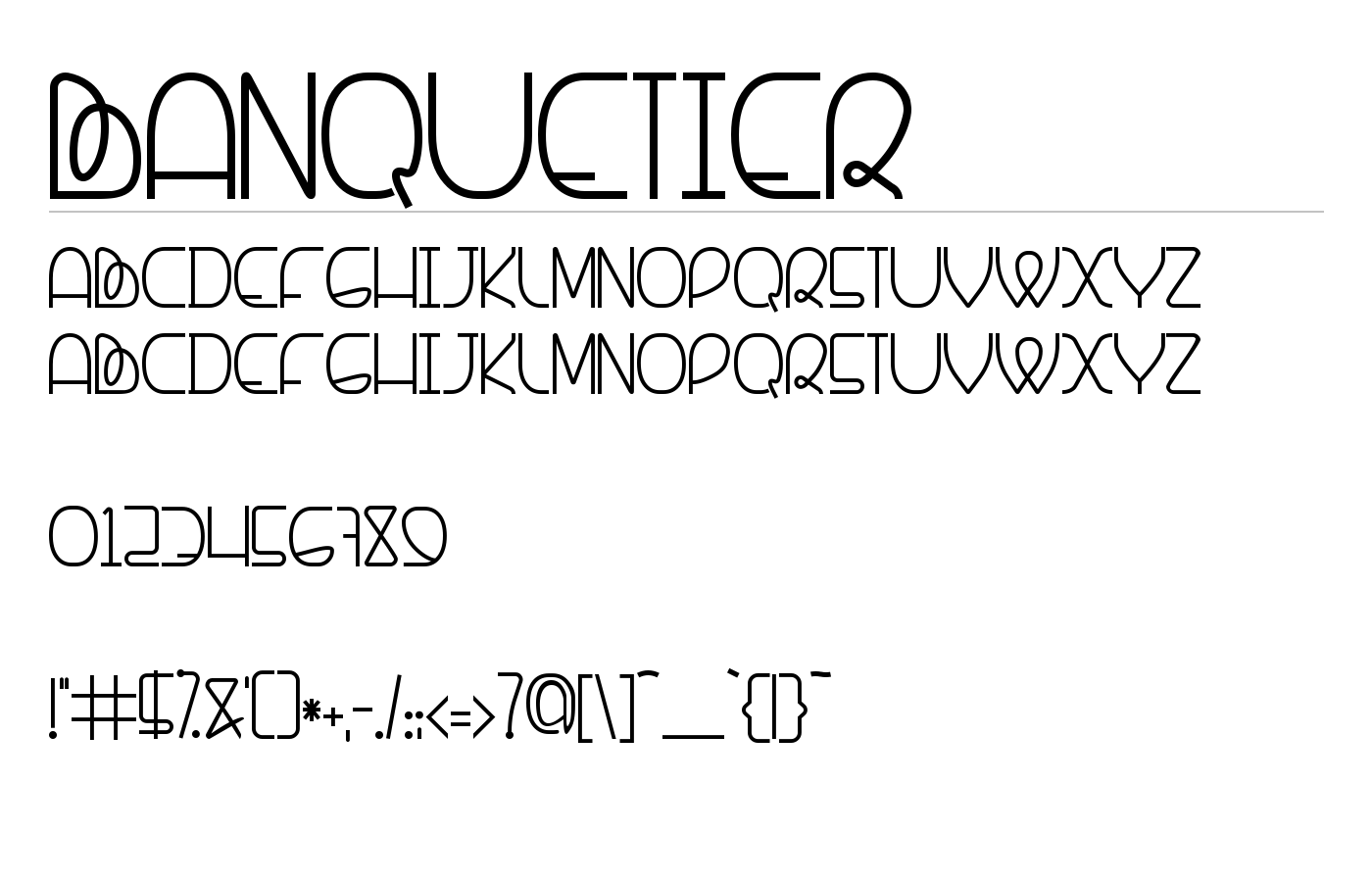
Banquetier is a unique sans serif font with a thin, delicate line weight and an artistic, almost calligraphic touch. Its tall, narrow letterforms and distinctive curved details give it a modern, elegant, and slightly whimsical personality, making it perfect for creative branding, fashion, and stylish editorial projects. This font works best in large sizes like logos and headlines where its intricate style can truly stand out.
Banquetier Font
About Banquetier Font
| Font family | Banquetier Font |
| Designer | Max Infeld |